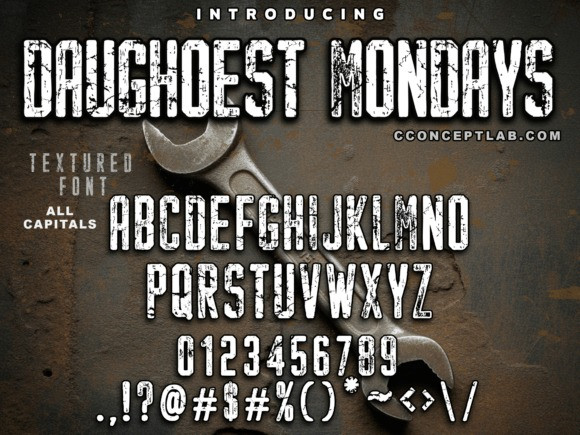
DAUGHOEST MONDAYS FONT
Daughoest Mondays Font is a strong, impactful stencil brush font built for visible and display design. With a distressed vibe, it’s perfect for military themes, tactical branding, survival gear, bold statement posters, or merchandise with a twist of round bold blackletter edge..